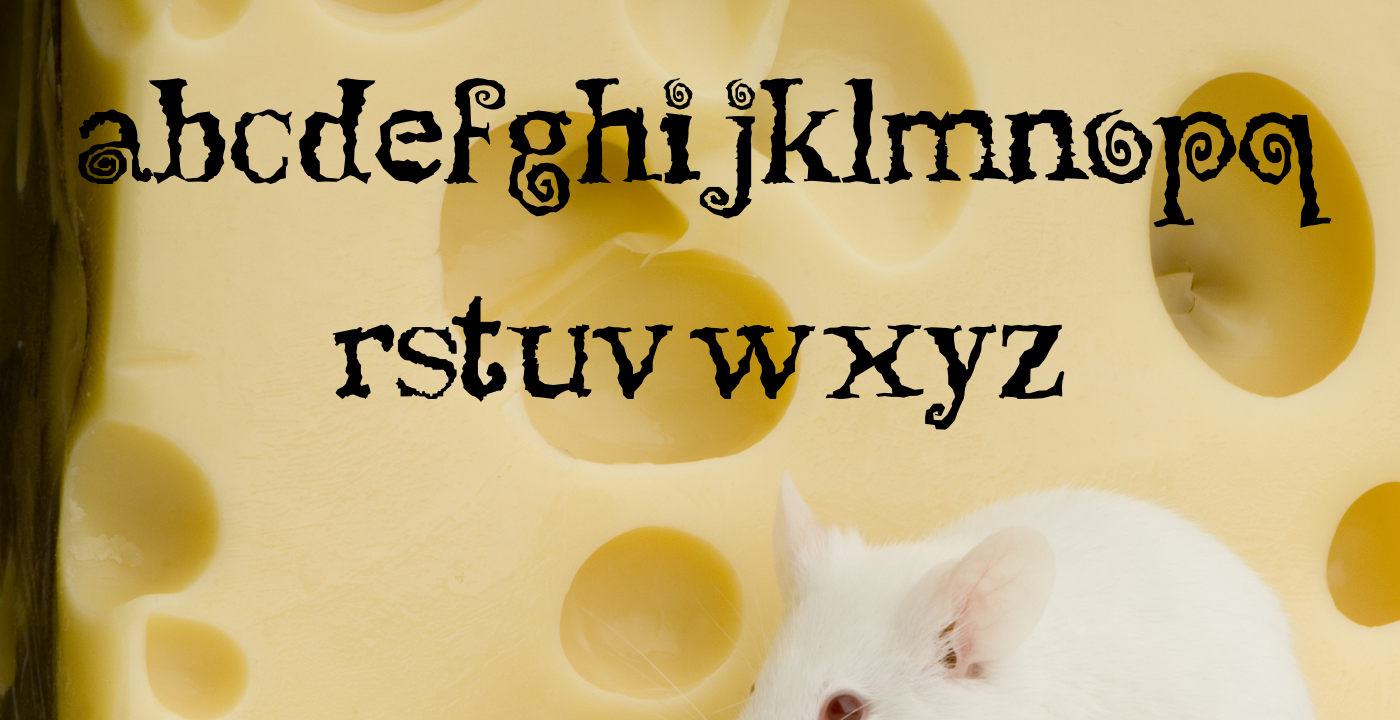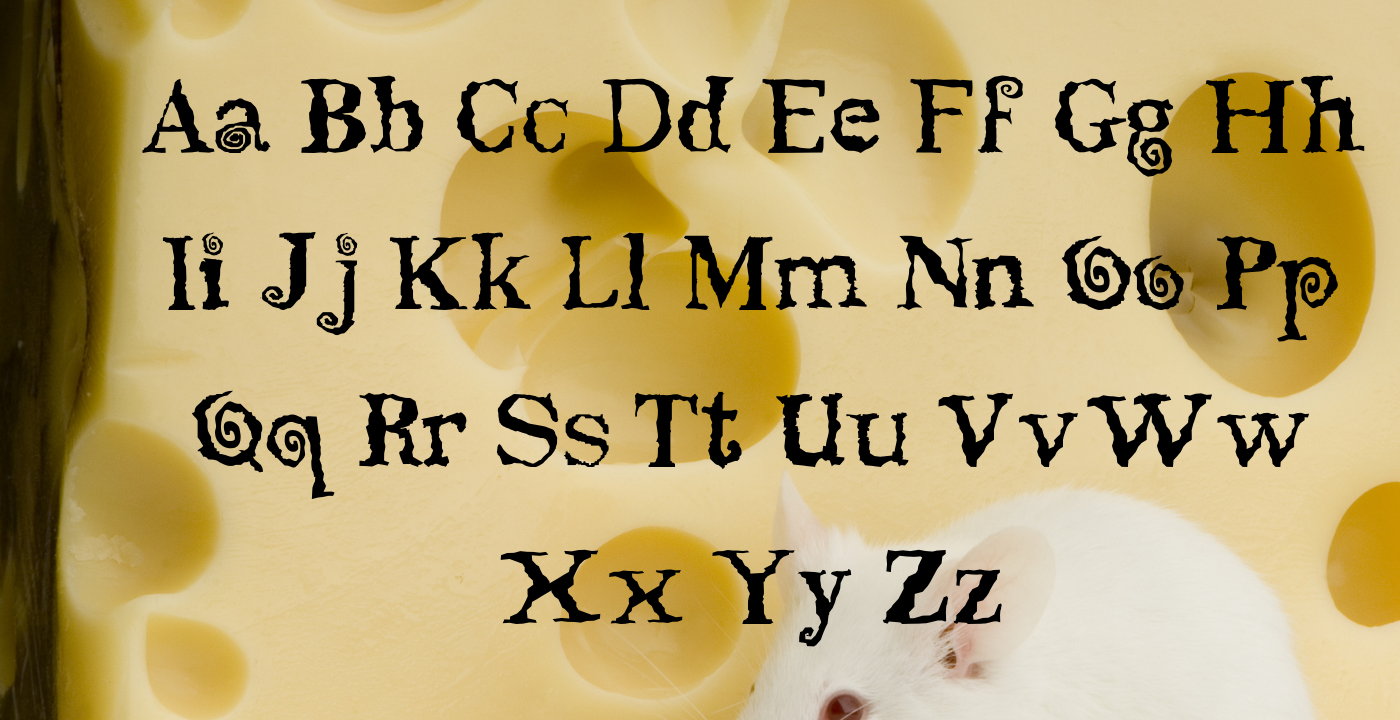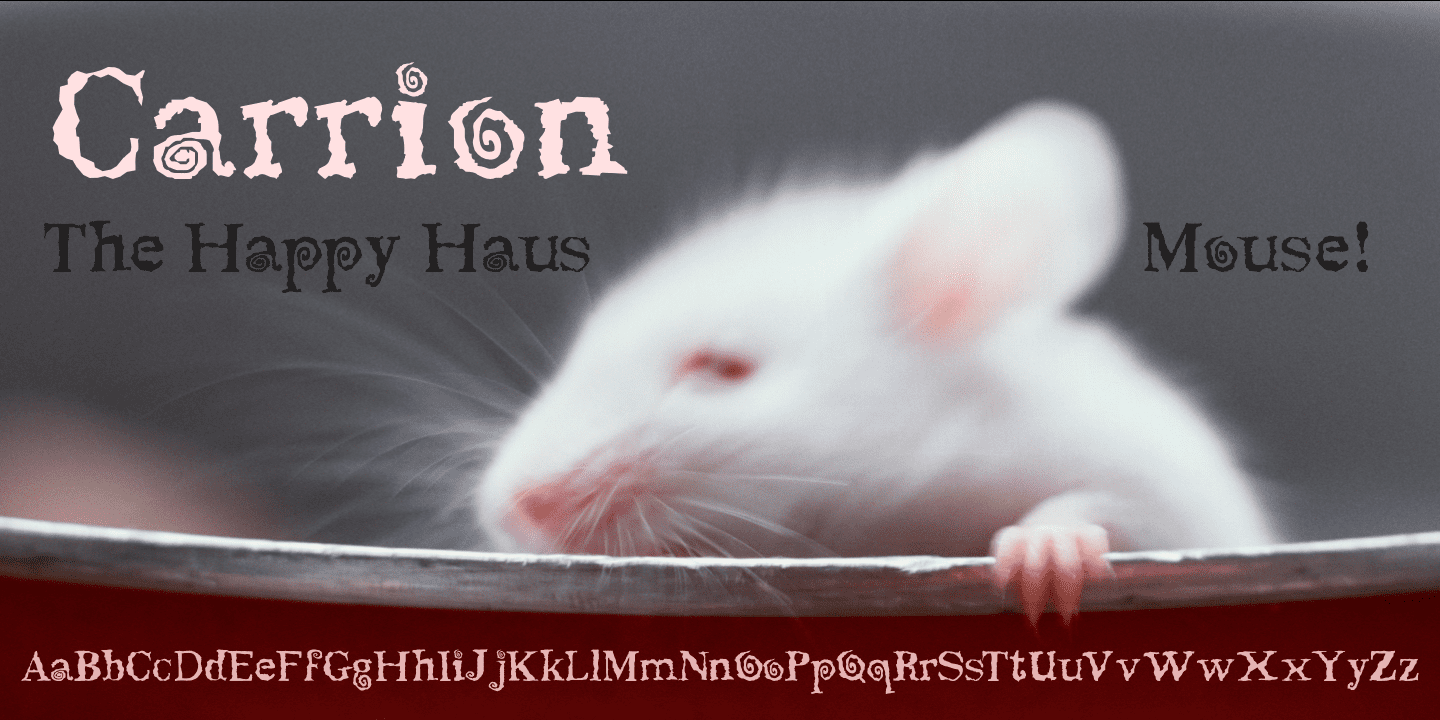
Jason Sutton is from Colorado has been with FontHaus since 1996. Although he has only the one font with us, Carrion is creative and packed with personality. We suspect the typeface reflects the personality of the designer...